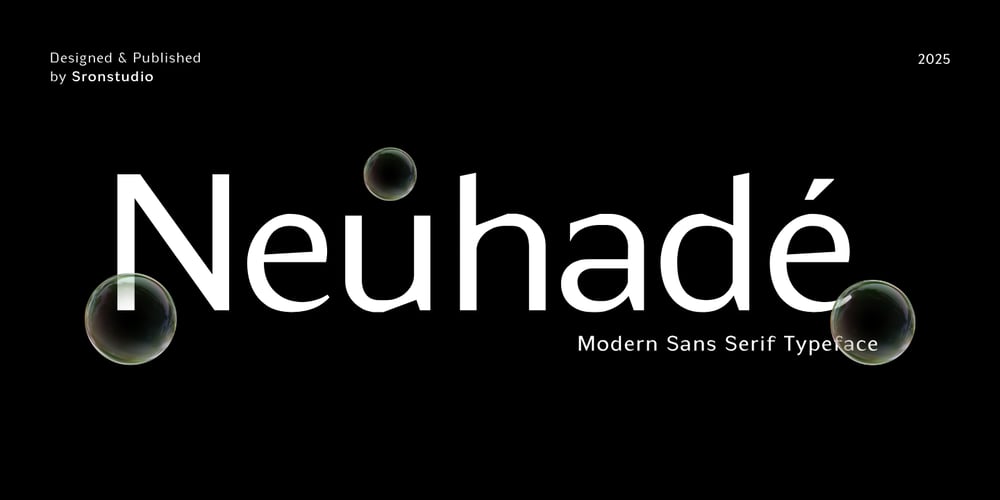
Neuhade Font Family was designed by Muhamad Yusron Billah and published by Sronstudio. Neuhade contains 8 styles and family package options. Neuhade is a sleek and modern logo font designed to bring a sophisticated and contemporary touch to your branding. With its clean lines, geometric precision, and stylish letterforms, this font is perfect for logos, headlines, packaging, and high-end design projects. Neuhade exudes elegance and professionalism, making it a great choice for brands that want to stand out with a refined and futuristic aesthetic.What’s included:- Style: Light, Regular, Medium, & Bold.- Uppercase & lowercase letters- Numerals & punctuation- PUA encoded for easy access- Multilingual support- Compatible with Mac and WindowsThank you very much 🙂